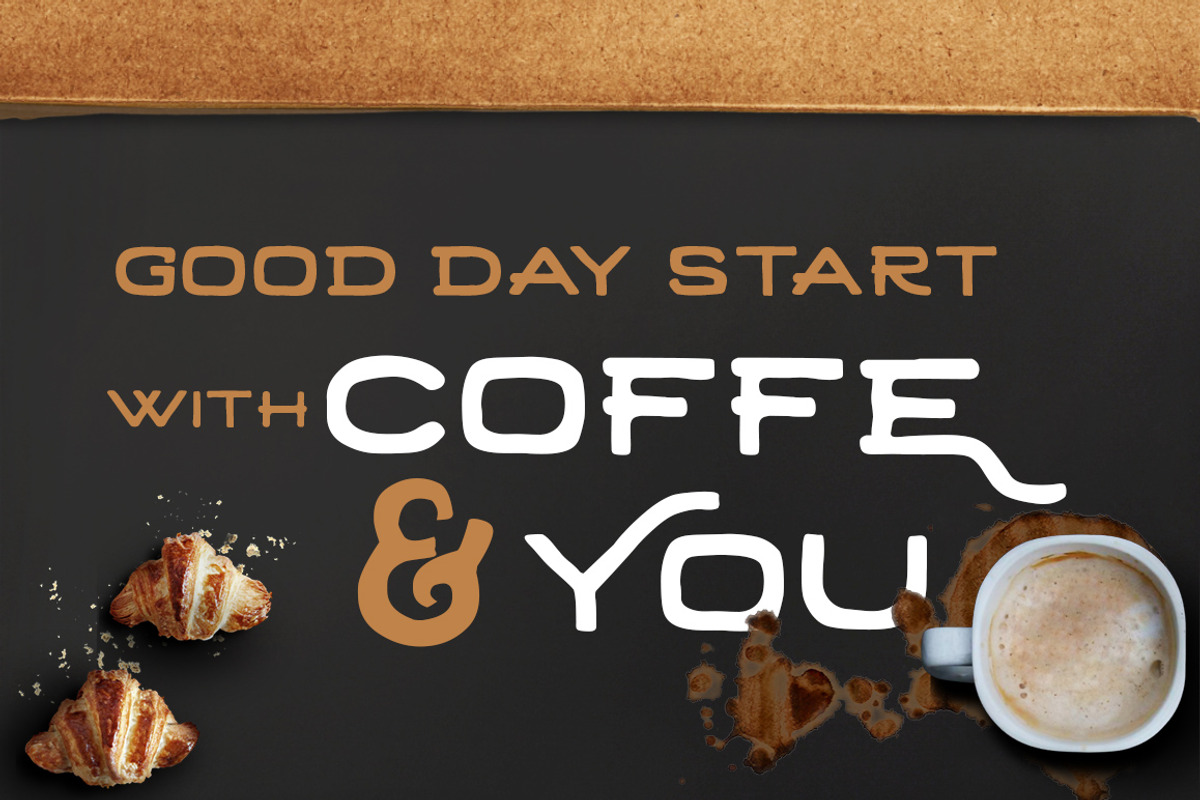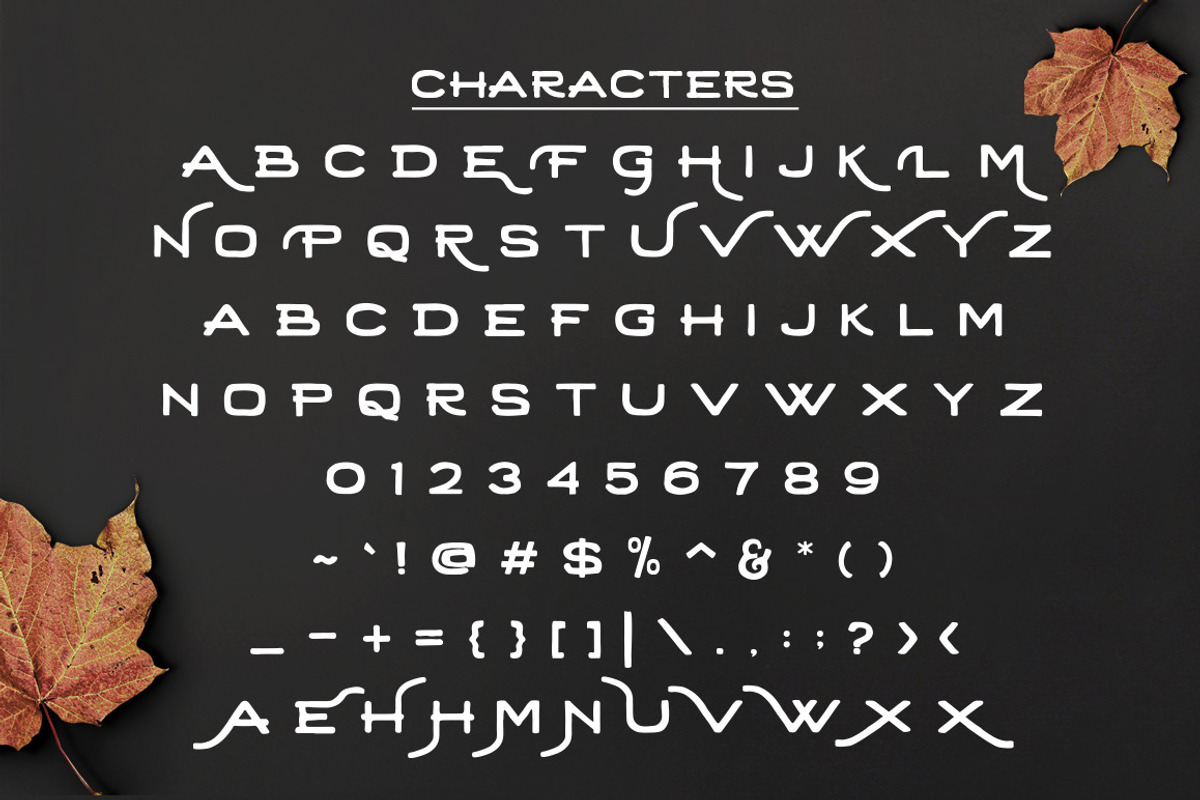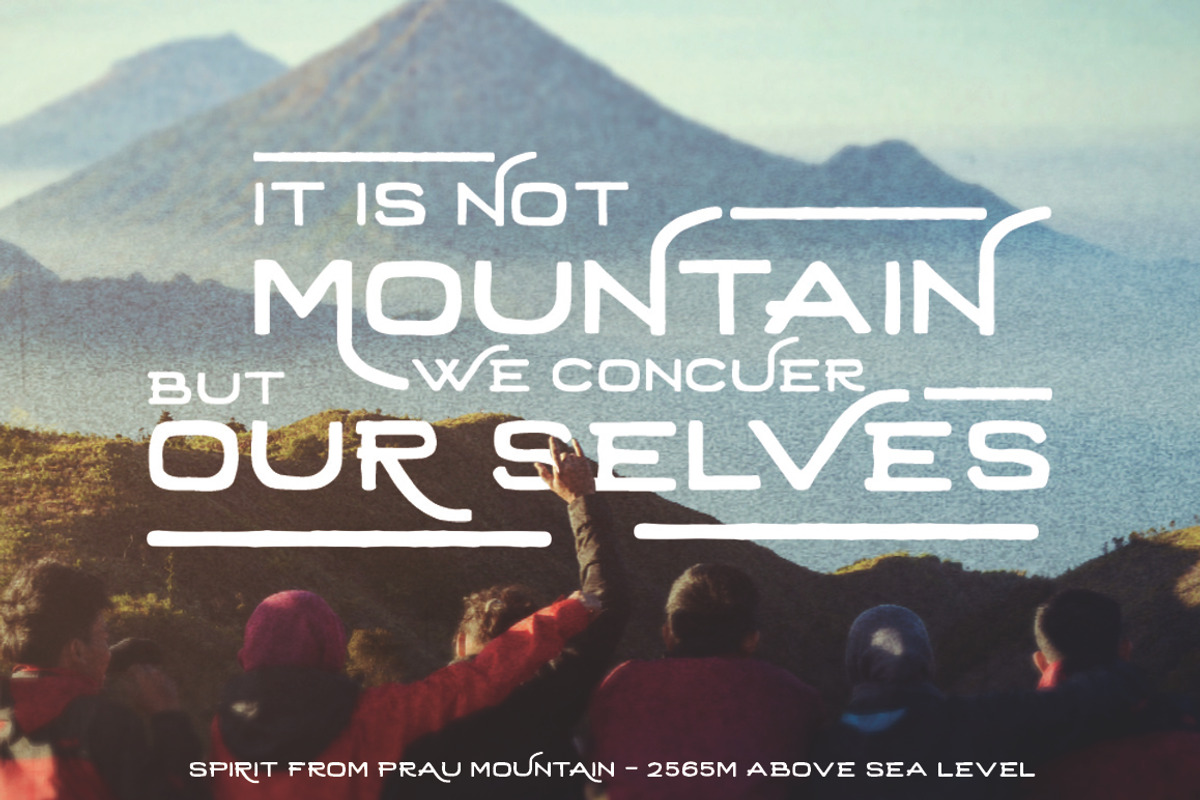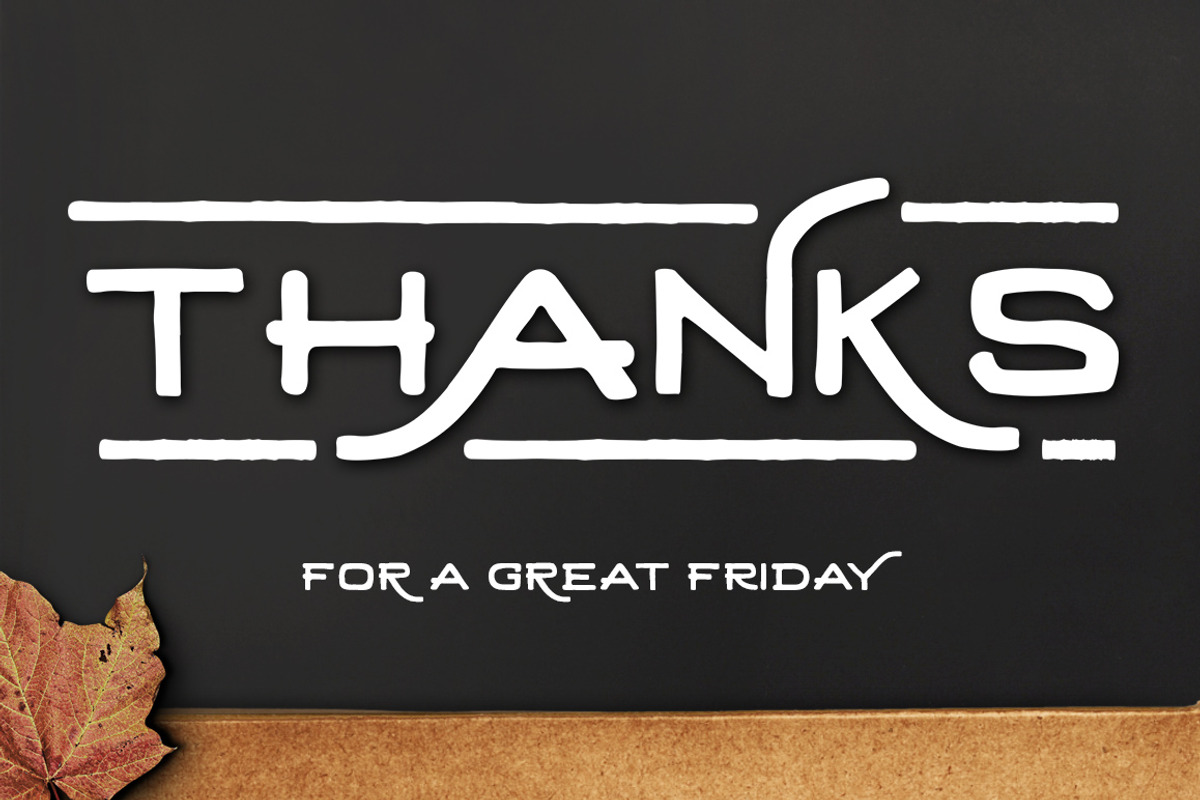
Retrica Typeface
Retrica Typeface by Republik Kreatif is a font selected for branding, posters, packaging, typography.
- was completely with some alternate characters.
Why Retrica Typeface is worth a look
Retrica Typeface by Republik Kreatif fits naturally into Branding, posters, packaging, typography.